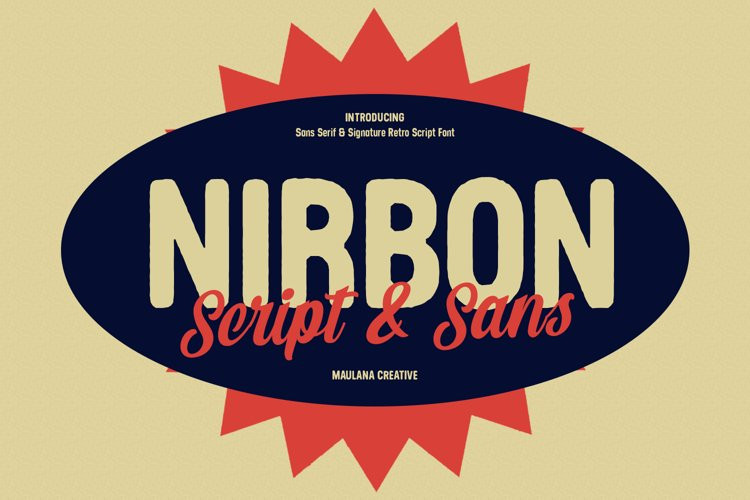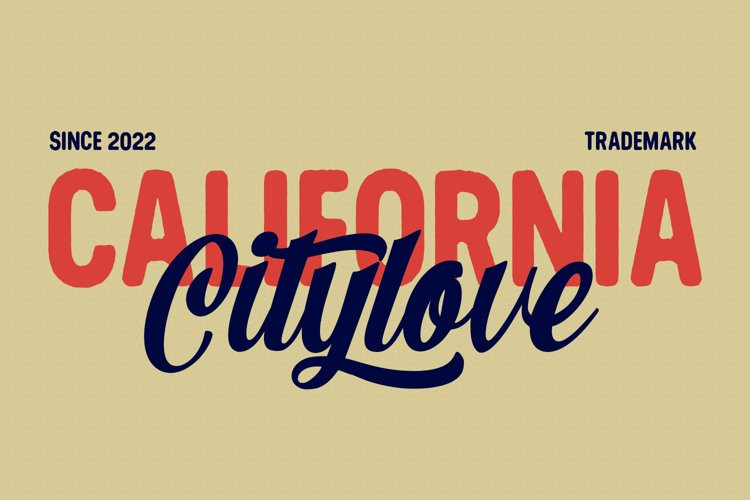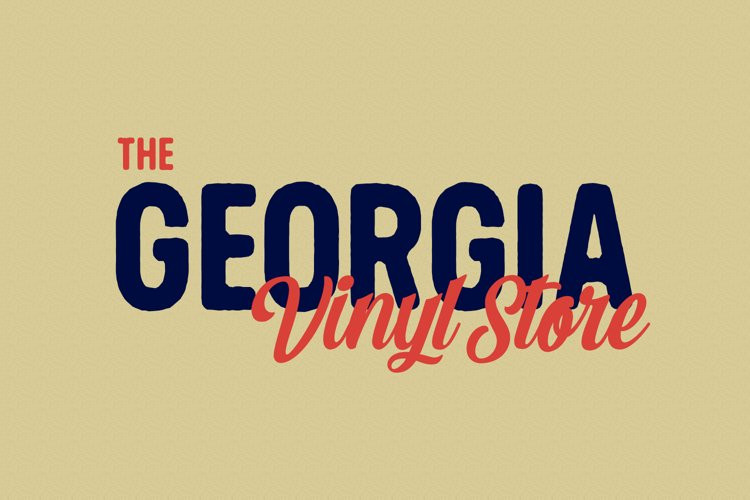
Nirbon Duo Font
Nirbon Duo FontNirbon is a Retro sans and script font duo. With Rough sans stroke and medium contrast script stroke, fun character with a bit of ligatures and alternates. To give you an extra creative work. Shorebird font support multilingual more than 100+ language. This font is good for logo design, Social media, Movie Titles, Books Titles, a short text even a long text letter and good for your secondary text font with sans or serif. Make a stunning work with Nirbon font.